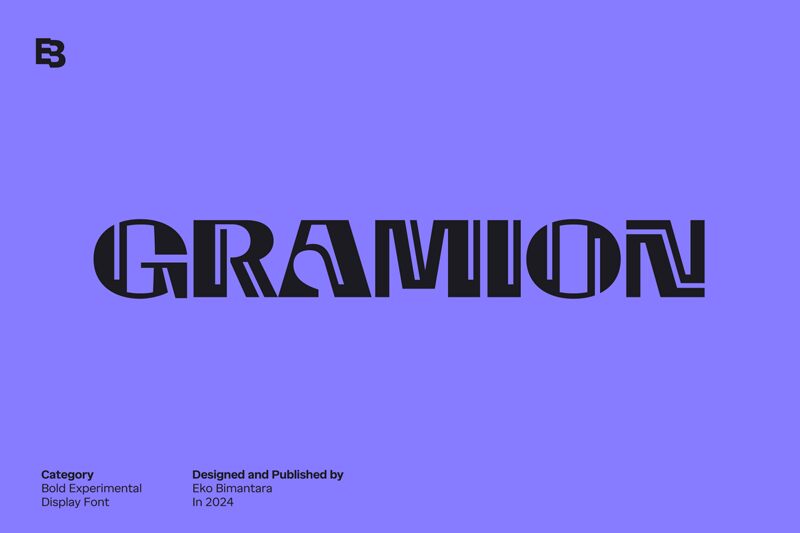
Gramion Trial
Gramion font by Eko Bimantara is a free display typeface that integrates the retro style and geometric shapes into one family. It includes monolith letters with expanded width, bold weights, and uniform lengths. While its design could remind you of the 80s classic movies’ typography, it still looks futuristic with angular shapes.
The usage possibilities of Gramion are endless; titles and headlines for magazines, flyers, posters, branding projects including logos and packaging designs, album covers, video games design thumbnails/ads/programming ideas catalogues + any other content whether printed or online.